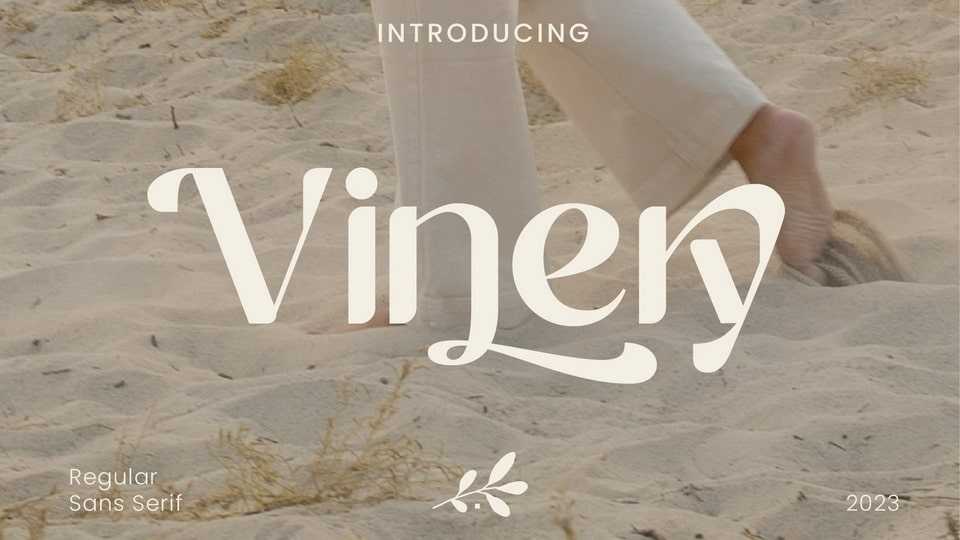
Download Vinery font, a sans serif typeface that combines modern design with unique swash alternates. This font is perfect for any design project that requires a clean and sleek look.